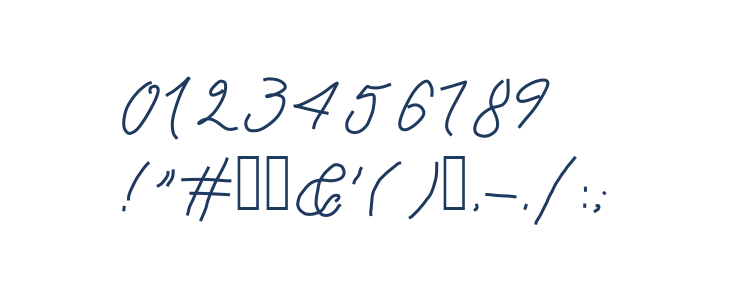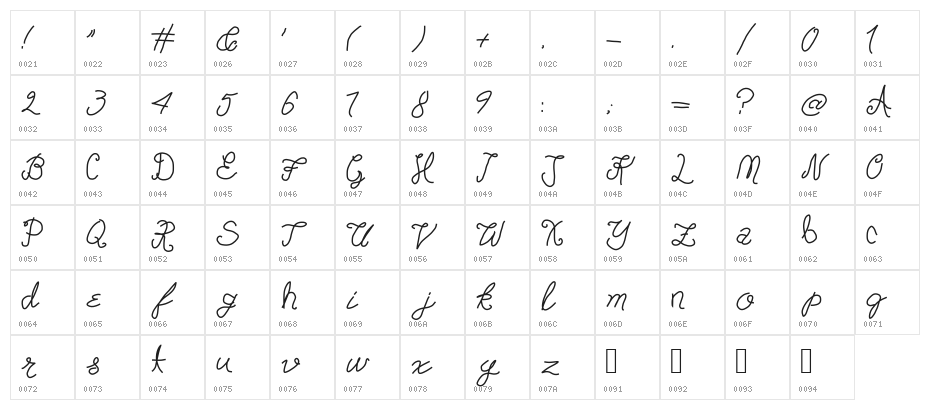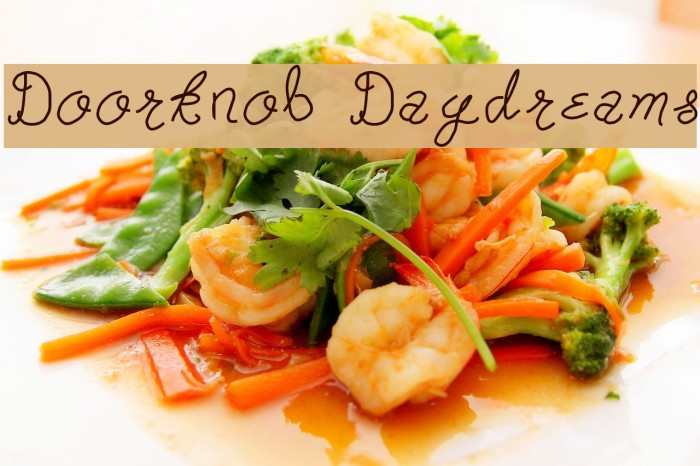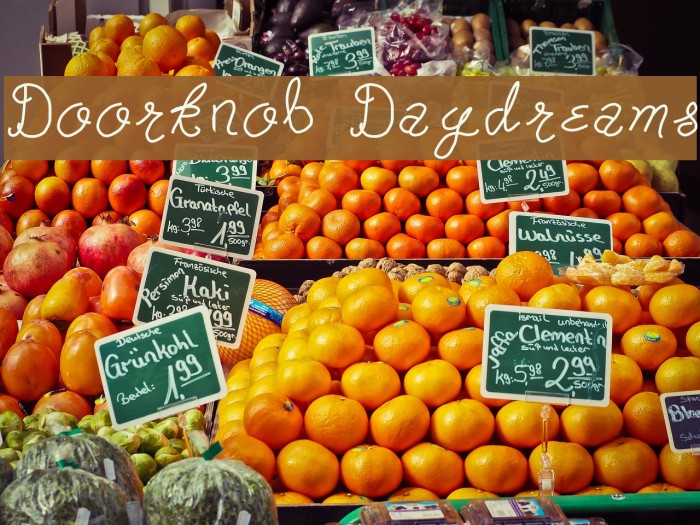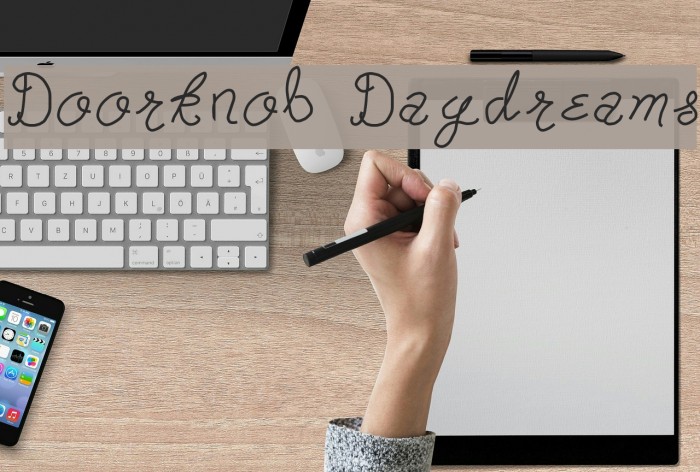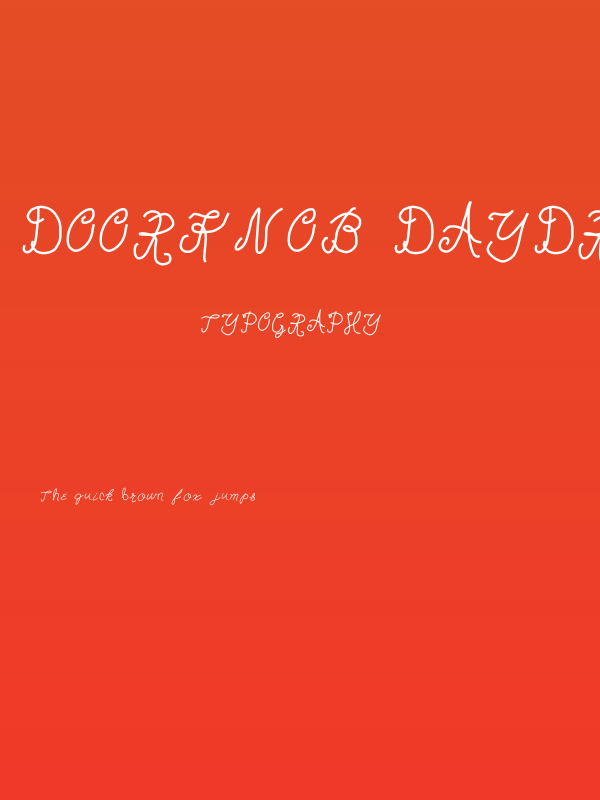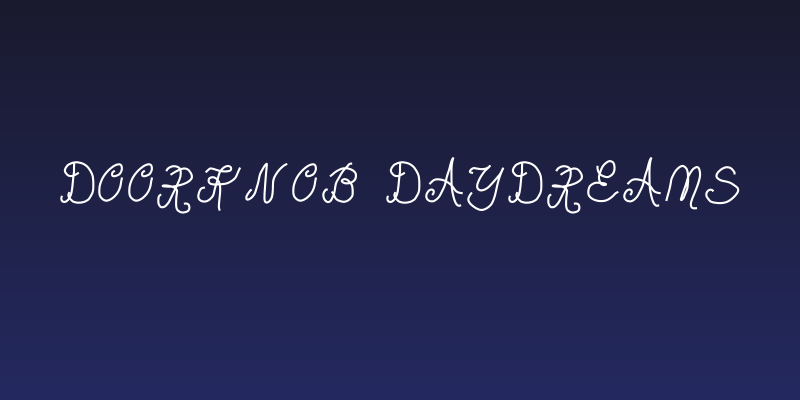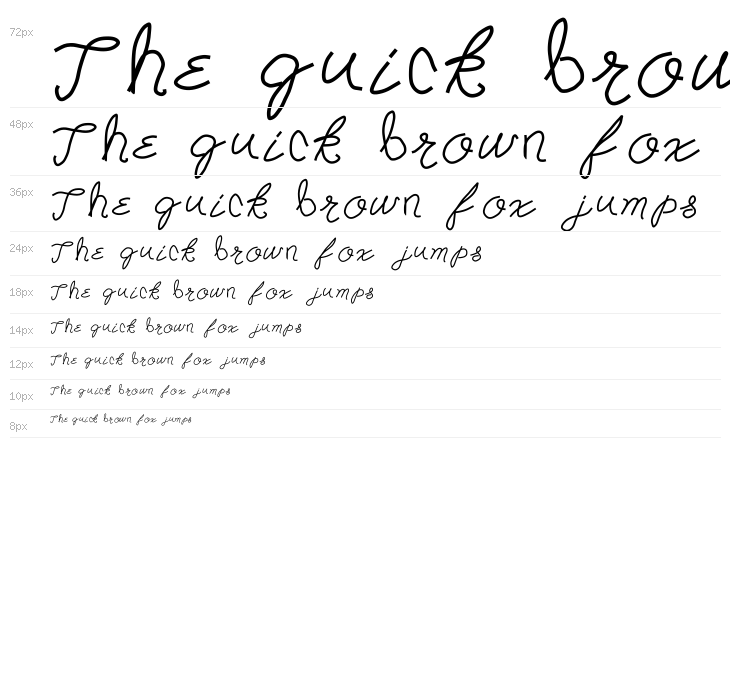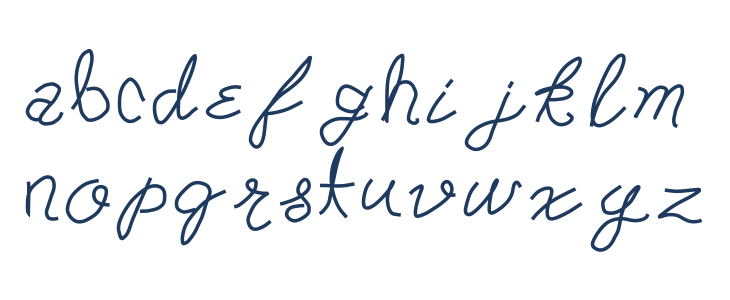
Doorknob Daydreams Font
Doorknob Daydreams Description
This font features a whimsical and flowing script style, characterized by its elegant and fluid strokes. The uppercase letters are distinct with playful loops and curves, while the lowercase letters maintain a consistent, cursive flow. The numbers are crafted with a similar flair, adding a touch of sophistication. Special characters are integrated seamlessly, enhancing the font's overall aesthetic. The design evokes a sense of creativity and imagination, making it ideal for projects that require a personal and artistic touch.